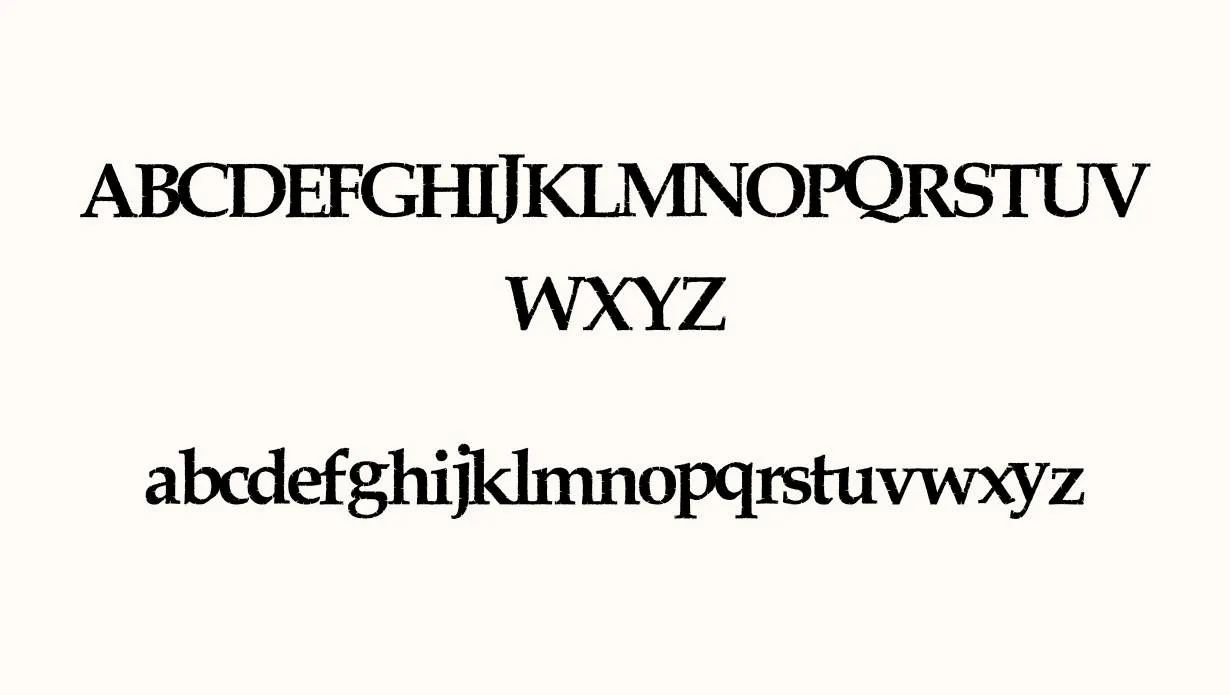
Pirates Bay Font is a stylish font designed by Xerographer Fonts. It has a vintage flair that can add a traditional touch to your design and make it stand out. This typeface features beautifully crafted uppercase and lowercase characters, numbers, and punctuations in a solo style.
Pirates Bay Font Family